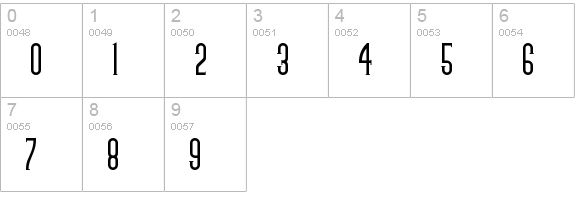
Namesake NF Font Details
Namesake NF font is a stunning display typeface that exudes elegance and sophistication. With its sleek and modern design, this font is perfect for a wide range of design projects, from branding to editorial design. The clean lines and distinctive letterforms make Namesake NF font a versatile choice for both print and digital applications. What sets Namesake NF font apart is its unique blend of classic and contemporary elements, giving it a timeless appeal that will elevate any design it is used in. Whether you are creating a logo, poster, website, or any other creative project, Namesake NF font is sure to make a lasting impression. And the best part? Namesake NF font is completely free to download at FontsMarket.com. So you can add this exceptional font to your design toolkit without any cost. Don't miss out on the opportunity to enhance your designs with the beauty and versatility of Namesake NF font. Download it today and see the difference it can make in your projects.